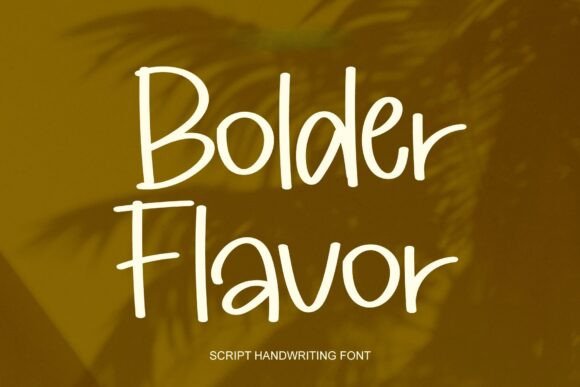
The Bold and Beautiful: Unleashing the Power of Bolder Flavor Font
I’ll never forget the time I was working on a branding project for a trendy new cafe. My client wanted a font that would convey strength, elegance, and a dash of charisma. I scoured the internet, tried out countless fonts, but nothing seemed to fit the bill. That was until I stumbled upon Bolder Flavor Font. ✨
This stunning font captivated me with its bold, fluid strokes and dynamic script style. It was as if the font was dancing on the page, exuding confidence and flair. I knew right then and there that I had found the perfect fit for my client’s project. In this article, I’ll share with you why Bolder Flavor Font is a game-changer for designers, crafters, and creative hobbyists alike.
• ✨ Unique and eye-catching design: Bolder Flavor Font stands out from the crowd with its bold, fluid strokes and dynamic script style.
• ✅ Versatile: This font can be used for a wide range of projects, from logos and headlines to branding elements and more.
• 💫 Elegant and charismatic: Bolder Flavor Font exudes strength, elegance, and charisma, making it perfect for projects that require a touch of sophistication.
While Bolder Flavor Font is an amazing font, there are a few things to keep in mind: ⚠️
• 🤔 Legibility at small sizes: As with many script fonts, Bolder Flavor Font can be a bit tricky to read at small sizes. It’s best used at larger sizes, such as headlines or titles.
• ⚠️ Overuse: While Bolder Flavor Font is stunning, it’s easy to overuse it. Make sure to balance it with other fonts and design elements to avoid overwhelming your design.
The Designer Inspiration Behind Bolder Flavor Font
The story behind Bolder Flavor Font is one of passion and creativity. According to the font’s designer, the inspiration came from a combination of traditional calligraphy and modern digital design. The goal was to create a font that would exude strength, elegance, and charisma, while still being approachable and friendly.
Q: What is Bolder Flavor Font?
A: Bolder Flavor Font is a bold, fluid script font designed to exude strength, elegance, and charisma. It’s perfect for designs that require a touch of sophistication and confidence.
Q: Is Bolder Flavor Font easy to read?
A: Bolder Flavor Font is designed to be elegant and charismatic, but it can be a bit tricky to read at small sizes. It’s best used at larger sizes, such as headlines or titles.